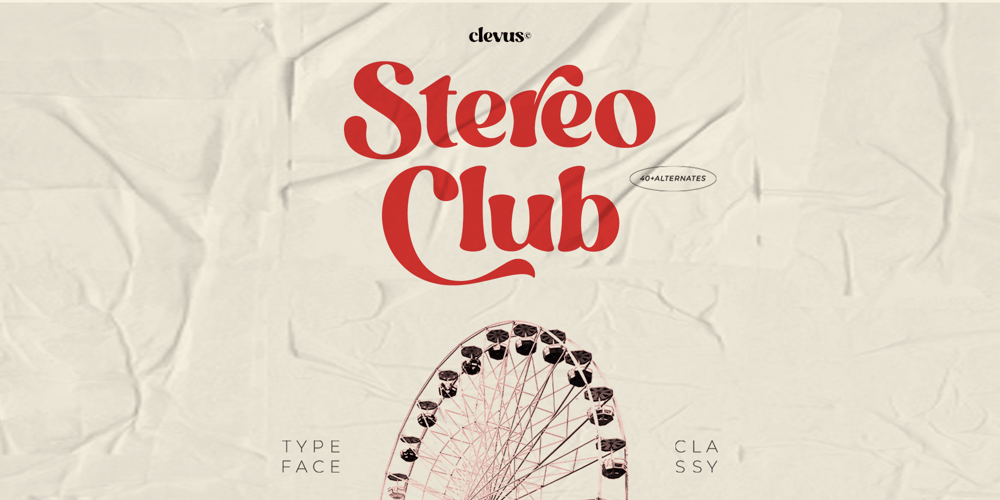
Stereo Club Font Family was designed by Alfinu Zafir and published by Clevus. Stereo Club contains 1 styles and family package options. Proudly presenting StereoClub, a modern bold typeface.StereoClub equipped with 60 unique alternates and ligatures, to help create stunning logos, quotes, posts, blog posts, branding projects, magazine imagery, wedding invitations, poster and much more.Font Features : StereoClub OTF ( Open Type ) Lettres, numbers, symbols, and punctuation 60 alternates and ligatures No special software required they may be used even in canva, any basic program /website apps that allows standard fonts That’s it folks! Multilingual Support Language Support: Danish, English, Estonian, Filipino, Finnish, French, Friulian, Galician, German, Gusii, Indonesian, Irish, Italian, Luxembourgish, Norwegian Bokmål, Norwegian Nynorsk, Nyankole, Oromo, Portuguese, Romansh, Rombo, Spanish, Swedish, Swiss-German, Uzbek (Latin).Follow My Shop For Upcoming Updates Including Additional Glyphs And Language Support. And Please Message Me If You Want Your Language Included or If There Are Any Features or Glyph Requests, Feel Free to Send me A Message.Have a Good Day !